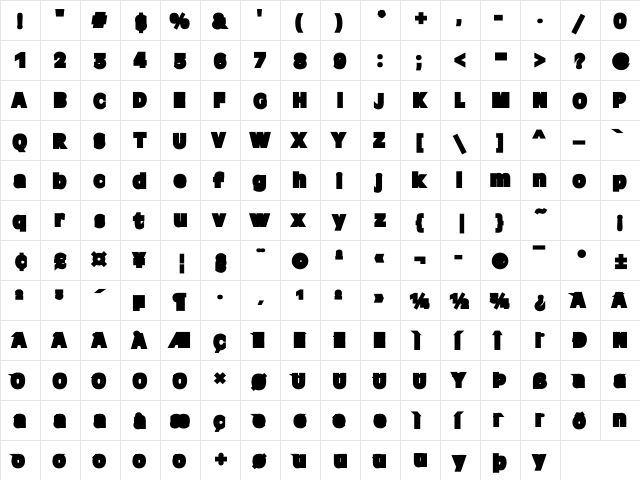
LHF American Sans Poster Regular
| Foundry | Arthur Vanson for Letterhead Fonts |
| Designer | Arthur Vanson |
Design Context for LHF American Sans Poster Typeface
LHF American Sans Poster offers clean, dependable letterforms without strong stylistic allegiance, making it a practical choice for designers who need flexibility.